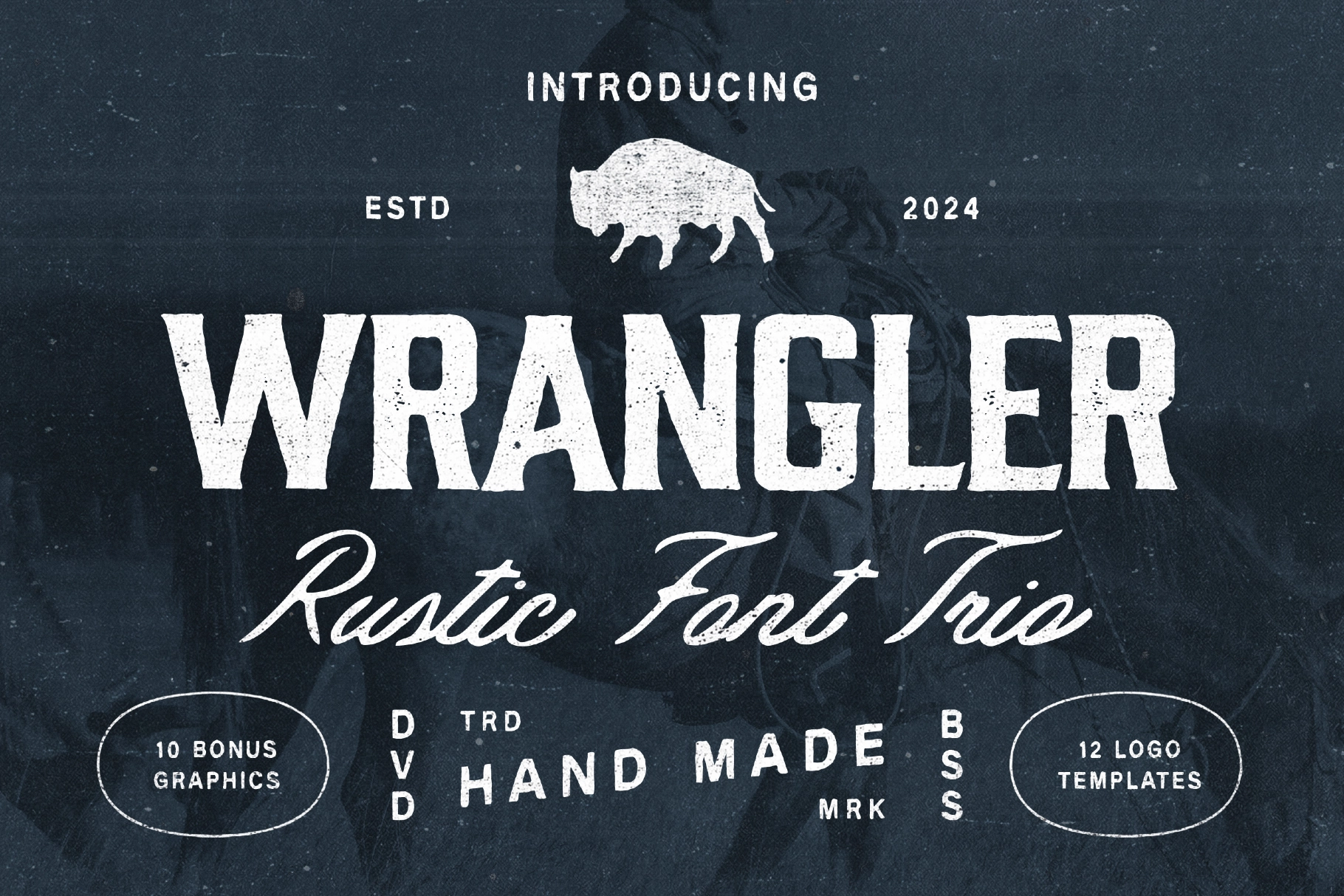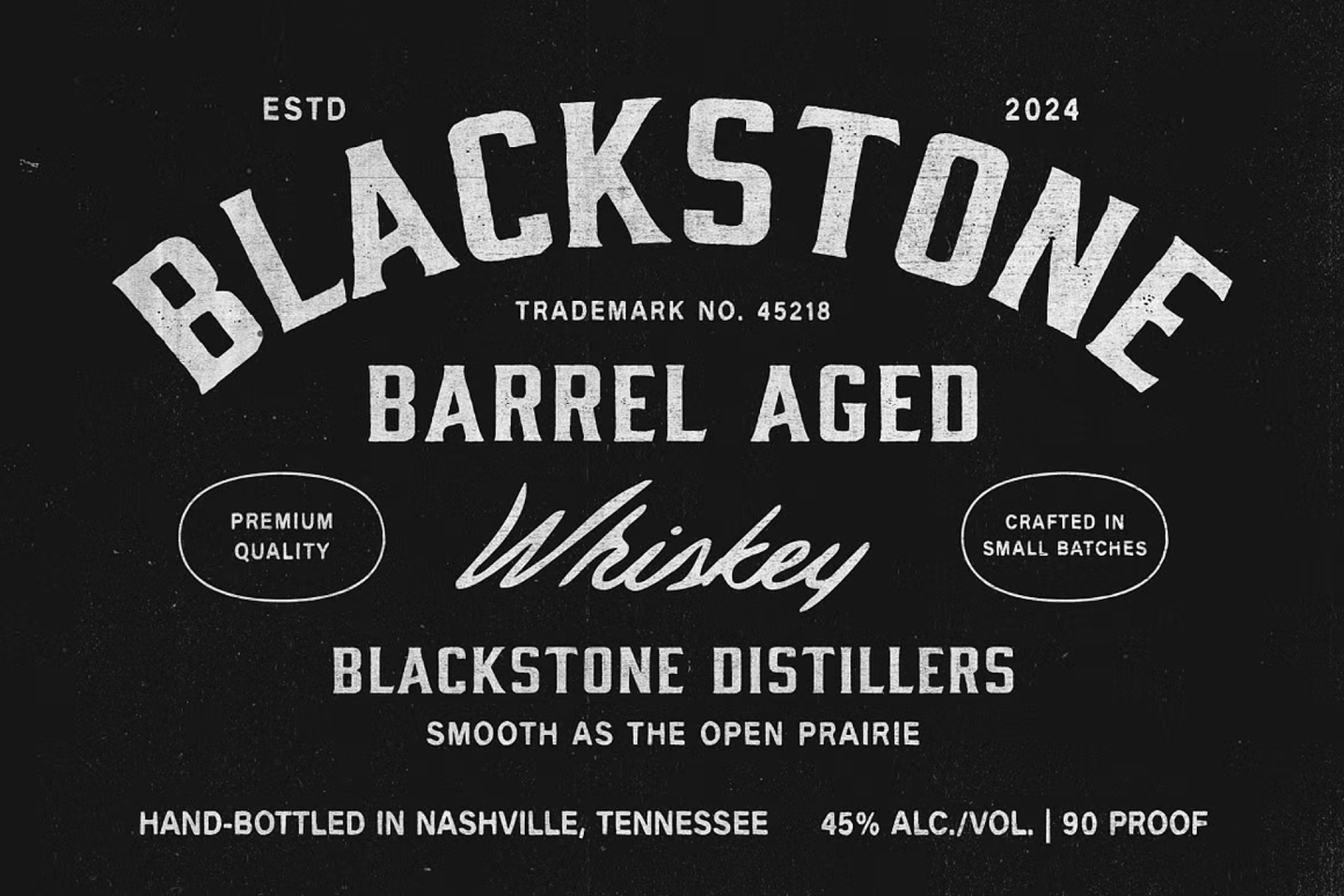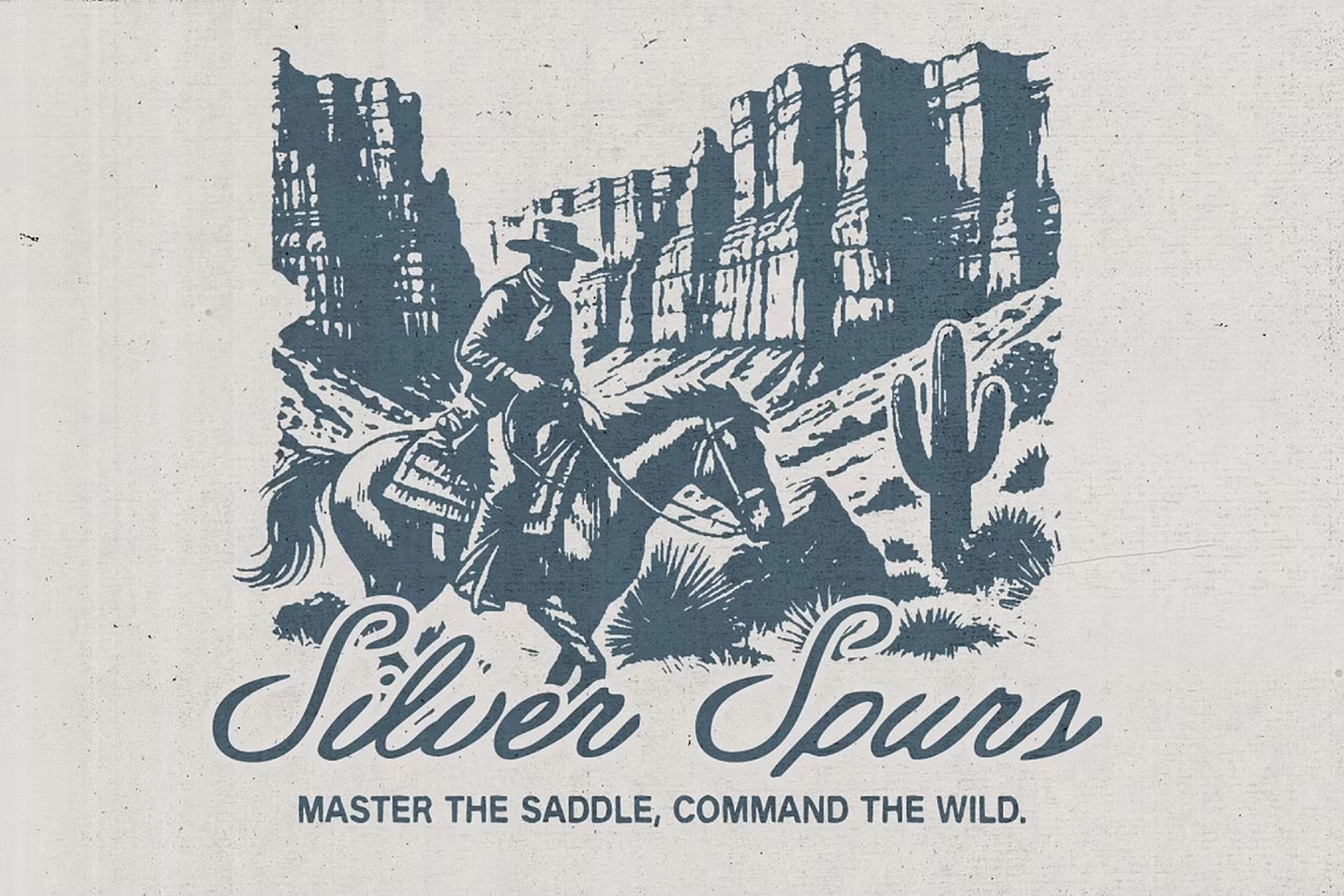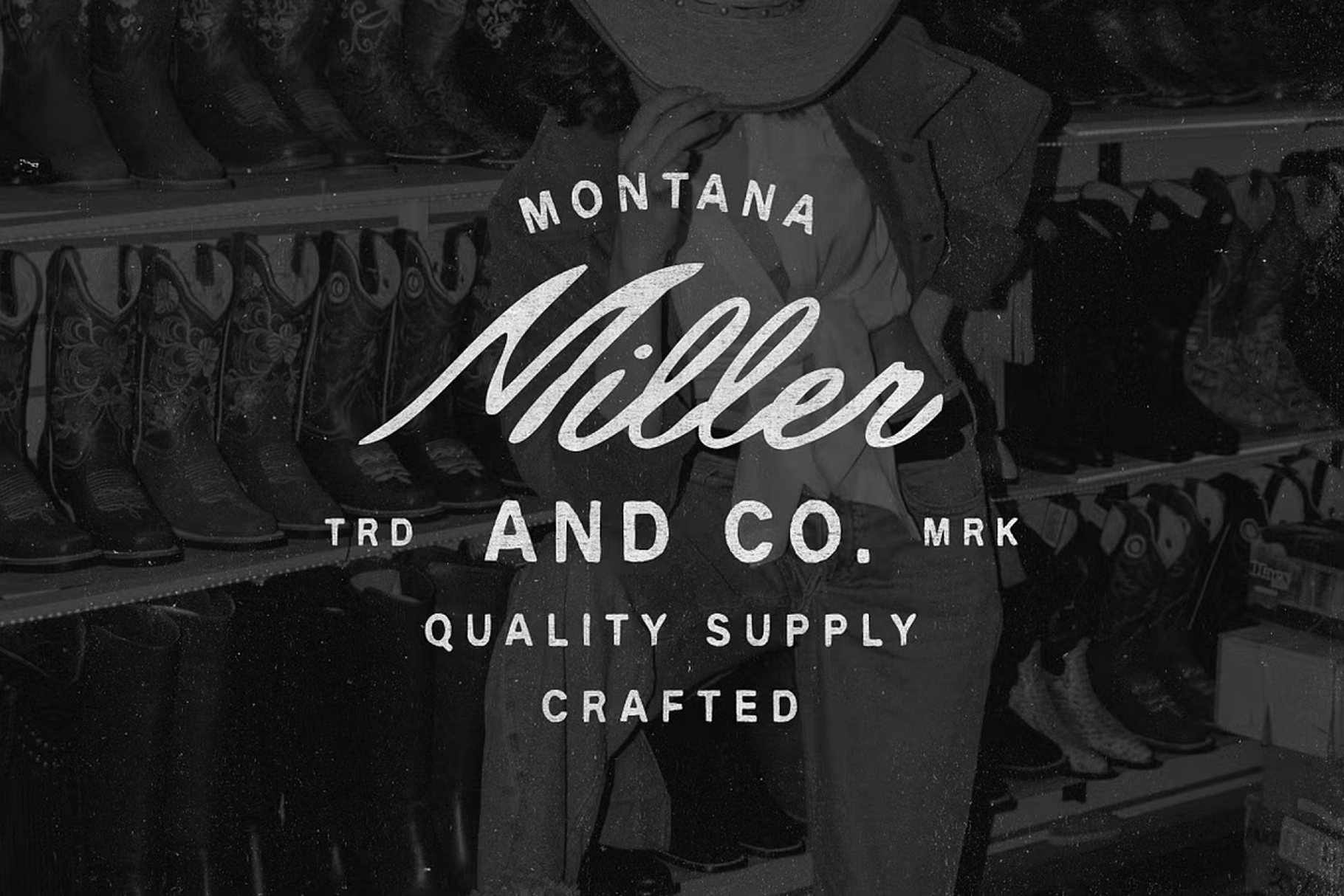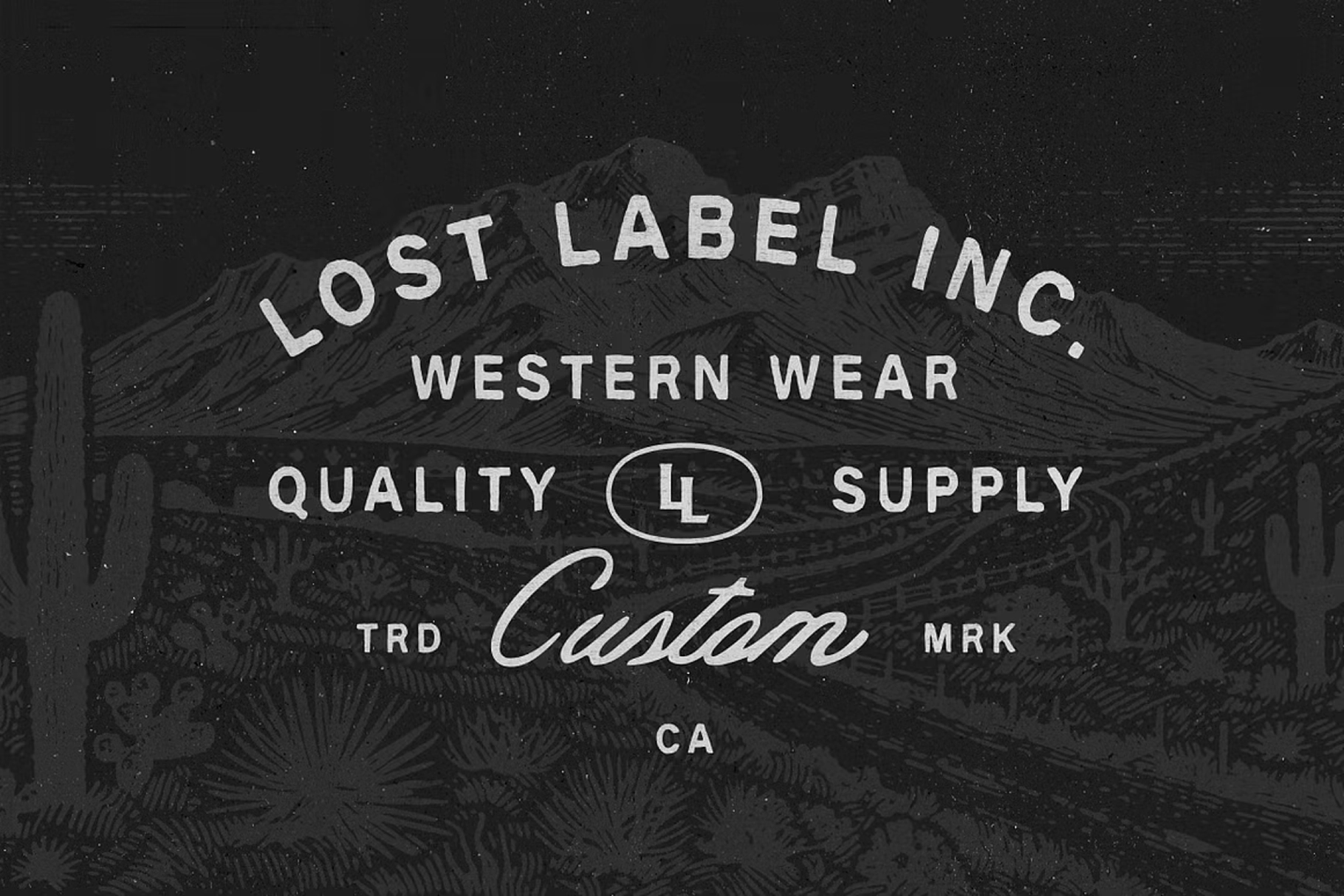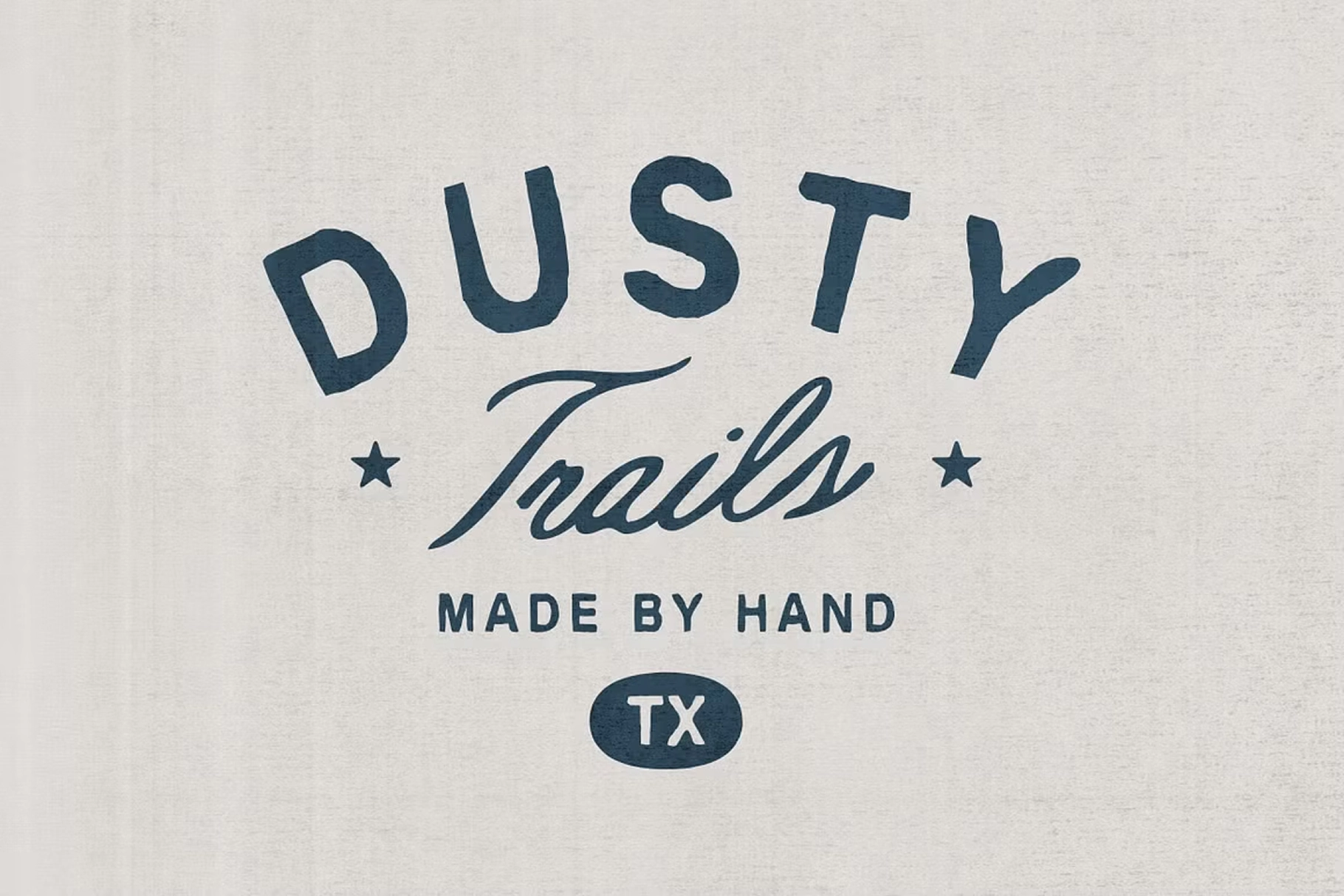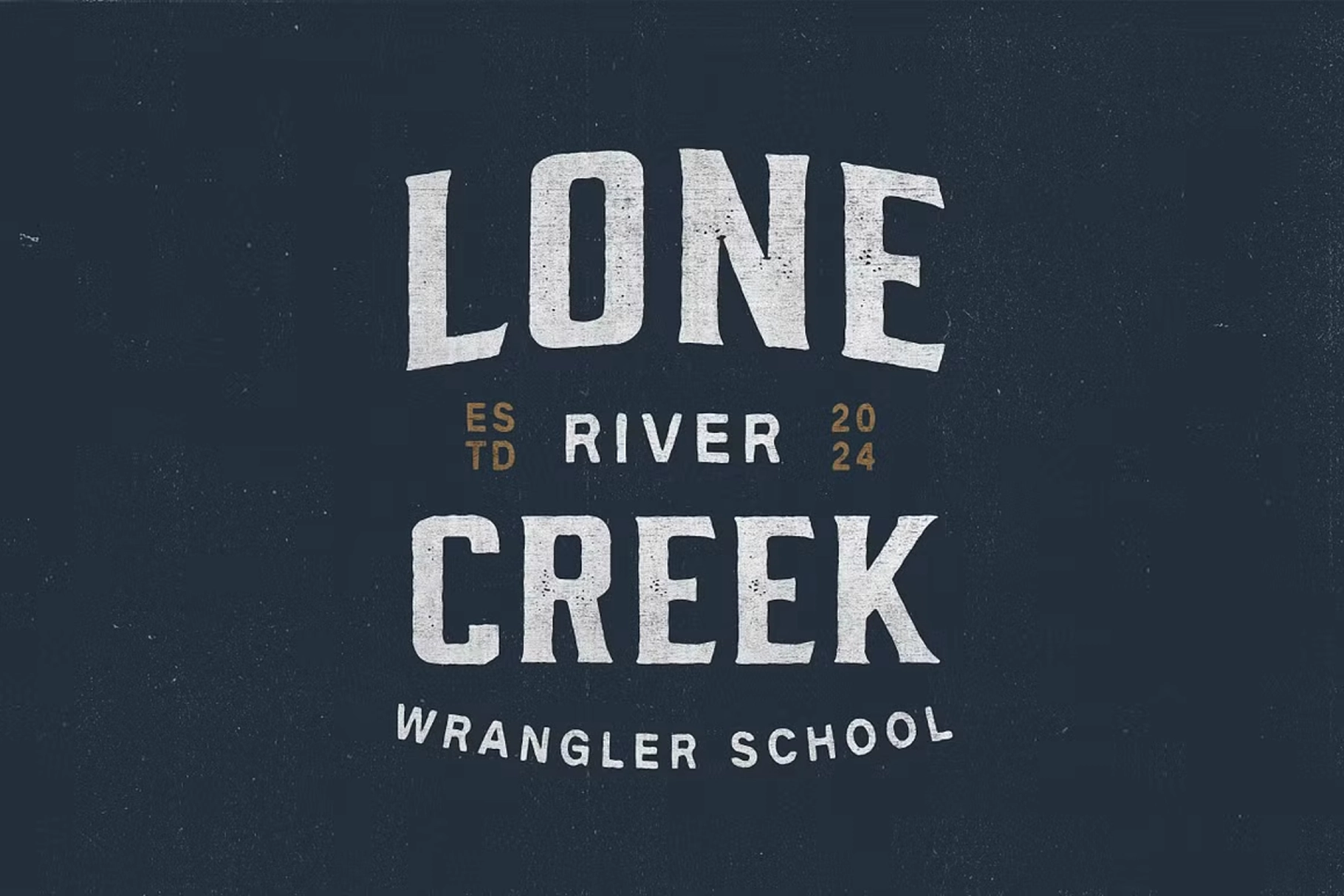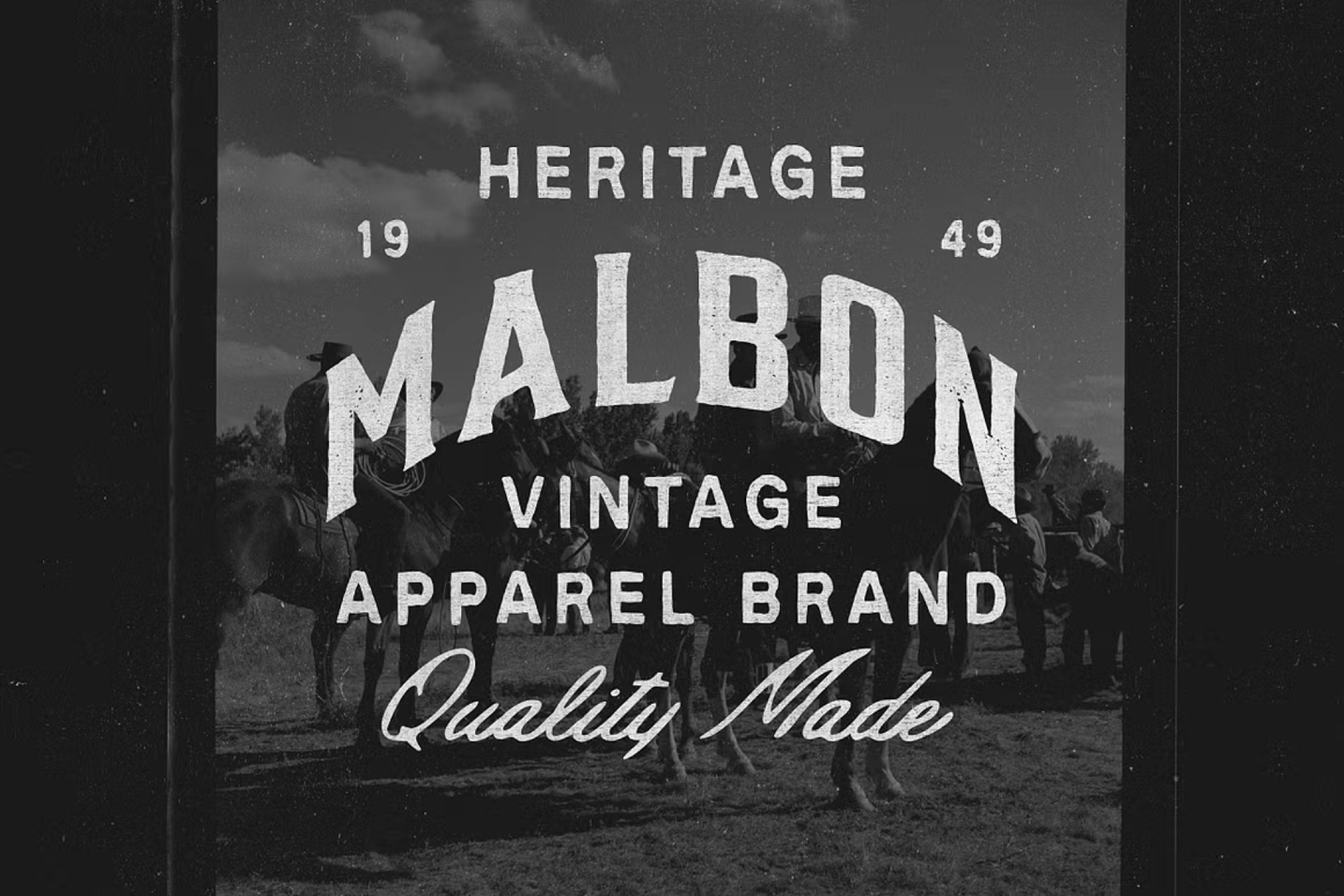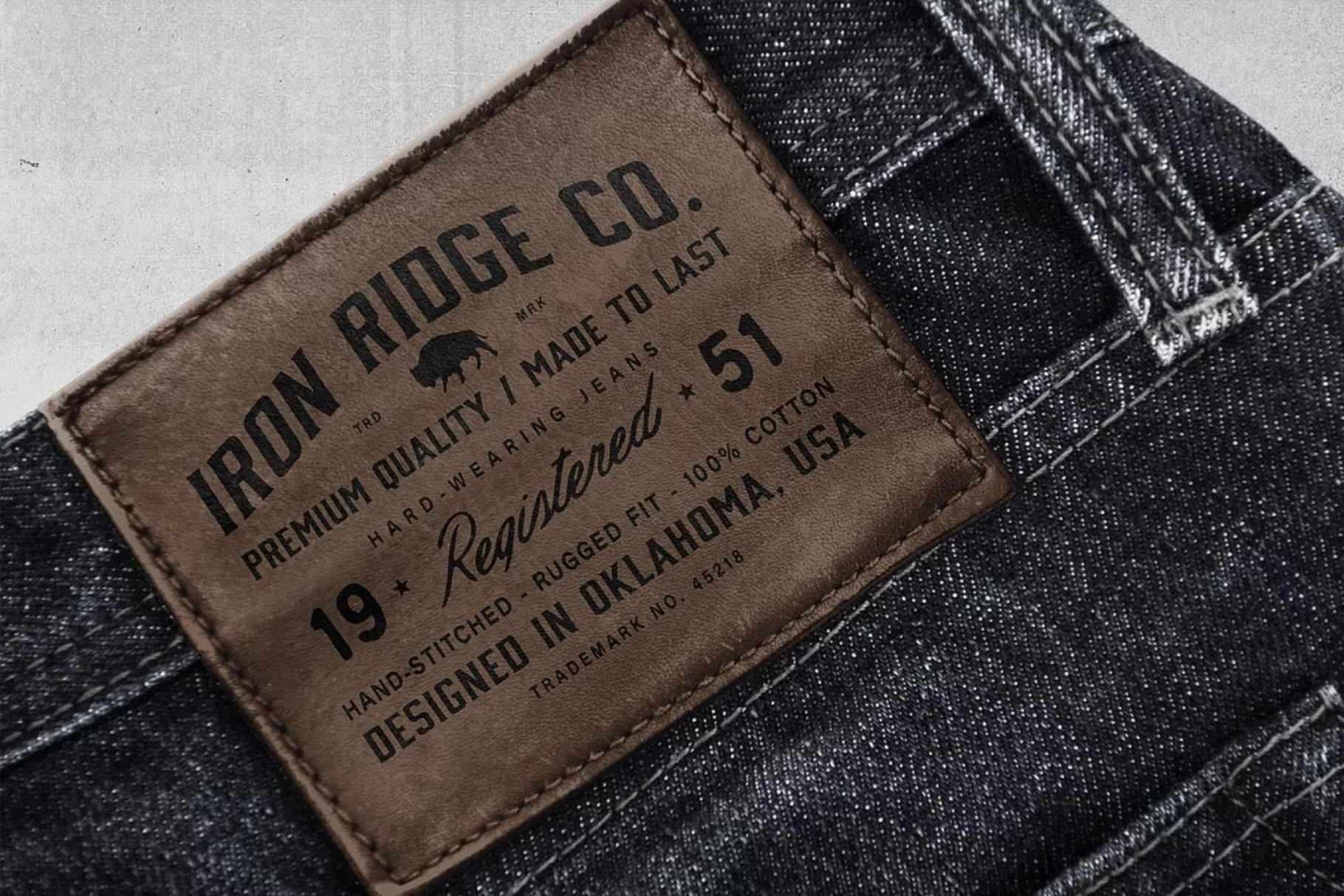
Wrangler Font Trio & Extra
The rugged three-voice family carries the grit of the American West, like rodeo bills, cattle brands, denim patches, and hand-painted barn signage. The display cut lands heavy with softened corners and printed grain, the script sweeps with brush energy, and the condensed style tightens layouts without losing that worn ink bite. Pairings lock together cleanly for badges and labels, then hold their own on headlines, stamps, and embroidery.
- Workwear marks — jacket backs, cap fronts, woven label art.
- Ranch and outfitter logos — primary wordmarks, date lines, map coordinates.
- Beverage and provisions — whiskey labels, hot-sauce sleeves, jerky packs.
- Event posters — rodeos, county fairs, bluegrass nights, BBQ cookouts.
- Wayfinding and signage — trail markers, barn doors, gate plates.
- Stamp and seal kits — rubber stamps, wax seals, ink-pad hangtags.
- Merch lines — screen-printed tees, tote graphics, enamel pins.
- Social promos — launch tiles, carousel covers, sale badges.
- E-commerce — hero headlines, collection banners, size-guide headers.
- Editorial features — profiles on makers, photo essays, gear spreads.
- Restaurant collateral — steakhouse menus, coasters, matchbooks.
- 3 styles: Display, Script, and Condensed.